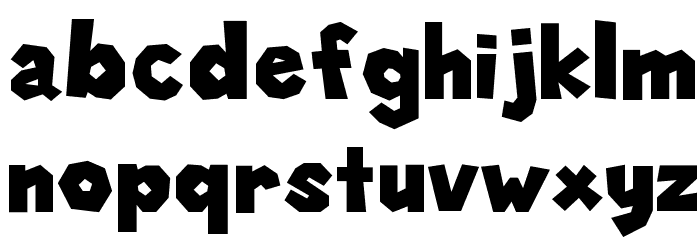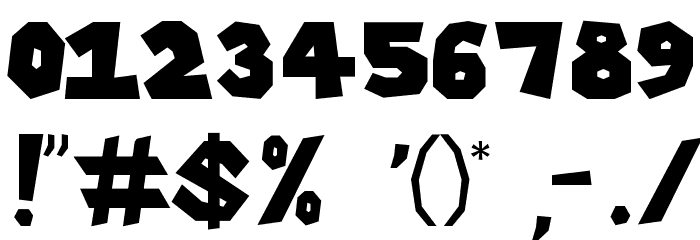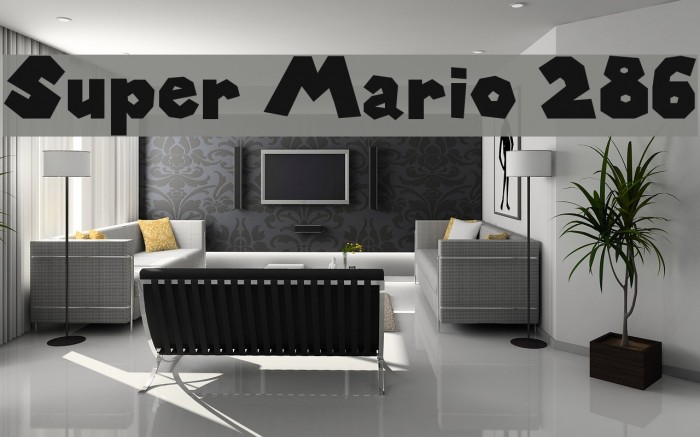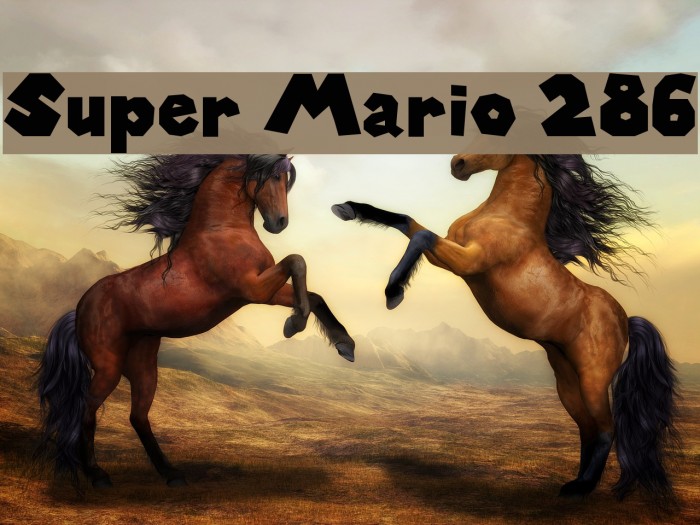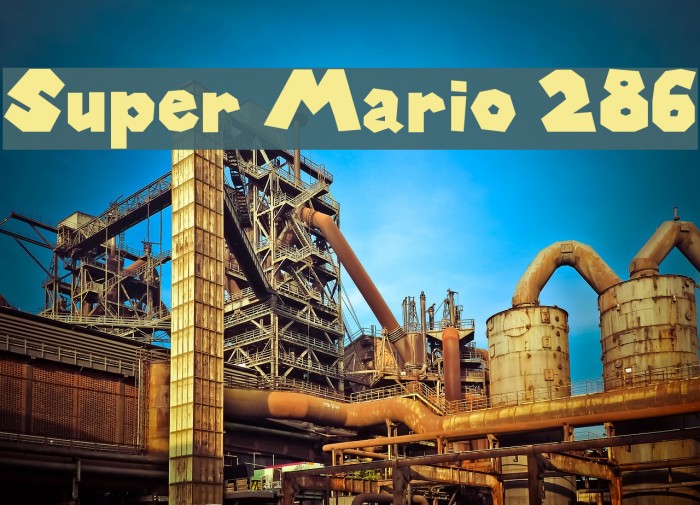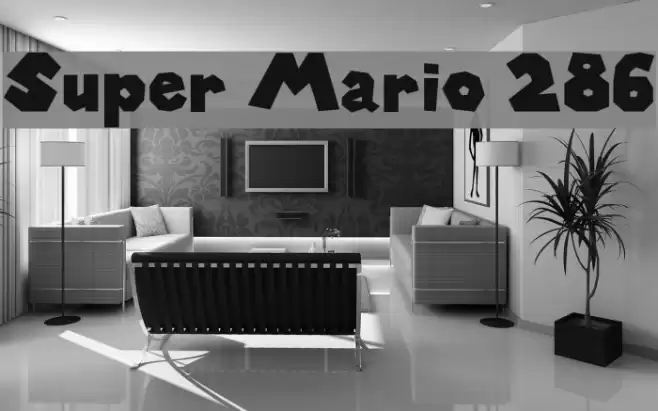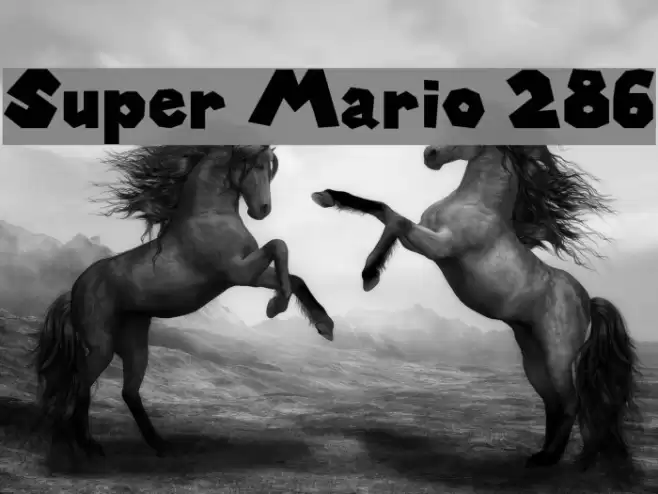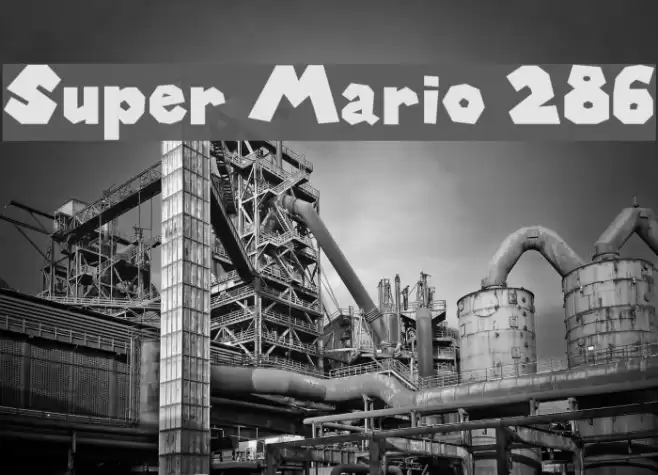
Super Mario 286 Font
This font features a bold and playful design, characterized by its chunky, irregular shapes that give it a dynamic and energetic feel. The letters have a blocky appearance with sharp angles and varying stroke widths, creating a sense of movement and excitement. The uppercase and lowercase letters maintain a consistent style, while the numbers and special characters complement the overall aesthetic. This font's unique style makes it stand out, perfect for capturing attention and conveying a sense of fun and adventure.
A bold, playful font with chunky, irregular shapes and dynamic energy.
- Proposed Projects: Ideal for video game titles, children's book covers, posters, and any project needing a fun, adventurous vibe.
- Overall Style: Playful, Energetic